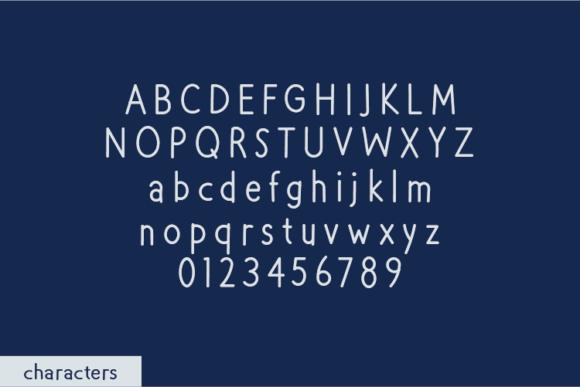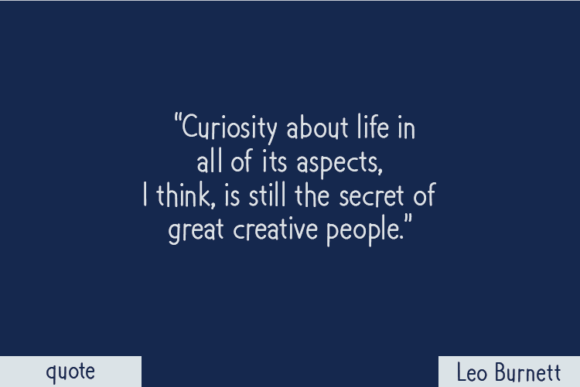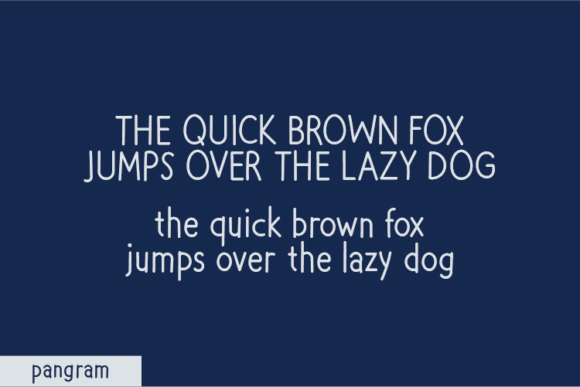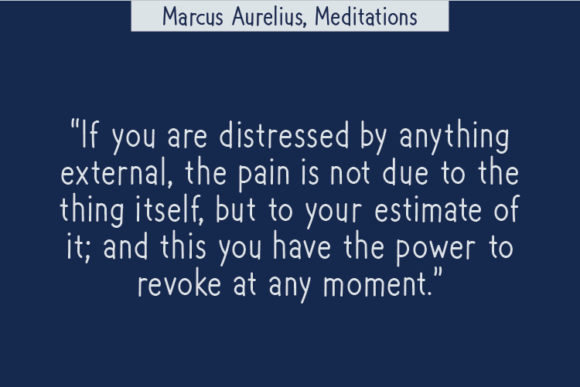
Mesmerizing Font
About Mesmerizing Font
Mesmerizing Font Download introduces a natural handwritten typeface designed with a raw and authentic style. What makes it truly special is that each letterform is created without altering a single node in its indentation. This careful design choice keeps every stroke genuine, giving your projects a handwriting effect that feels both artistic and original.
A Distinct and Authentic Style
The Mesmerizing font is all about natural flow and visual impact. With its handcrafted feel, it adds a human touch that works in countless design settings. Its balance between originality and readability makes it perfect for:
• Inspiring quotes and motivational notes
• T-shirt graphics and casual apparel designs
• Greeting cards, invitations, and stationery
• Branding, packaging, and logo design
• Digital projects such as blog headers and social media posts
Because of its versatility, Mesmerizing can fit both playful and professional design projects without losing its charm.
Why Designers Choose Mesmerizing
Designers appreciate Mesmerizing for its effortless blend of style and function. Its natural, node-free structure provides an organic handwritten effect, while its clean form guarantees readability across multiple applications. Pair it with a sans-serif typeface for modern layouts or let it shine as a standalone font in minimalist designs. This flexibility makes it a valuable addition to any designer’s toolkit.
Perfect for Print and Digital Projects
The true strength of Mesmerizing lies in its adaptability. It looks just as striking on fabric prints as it does in digital graphics. Whether you’re designing product labels, posters, journals, or promotional materials, Mesmerizing delivers consistent quality. Its charm makes it suitable for both casual and elegant designs, giving you the freedom to experiment creatively.